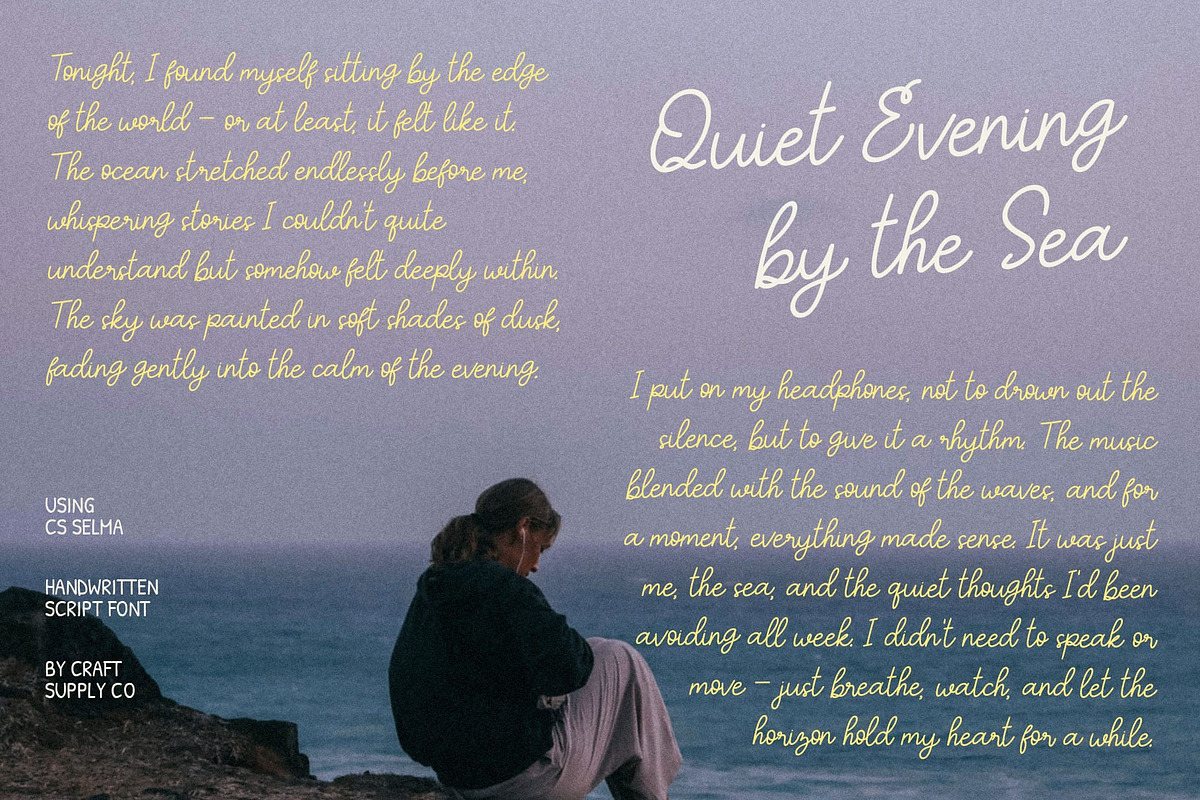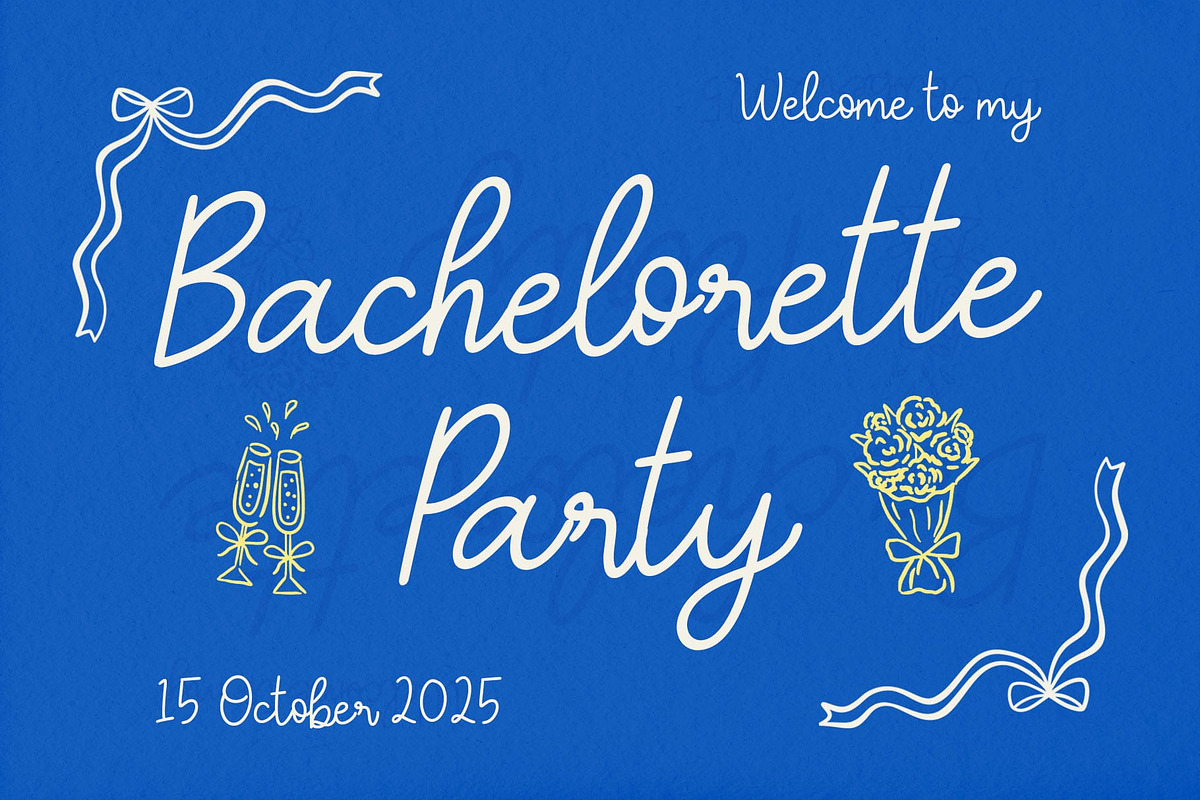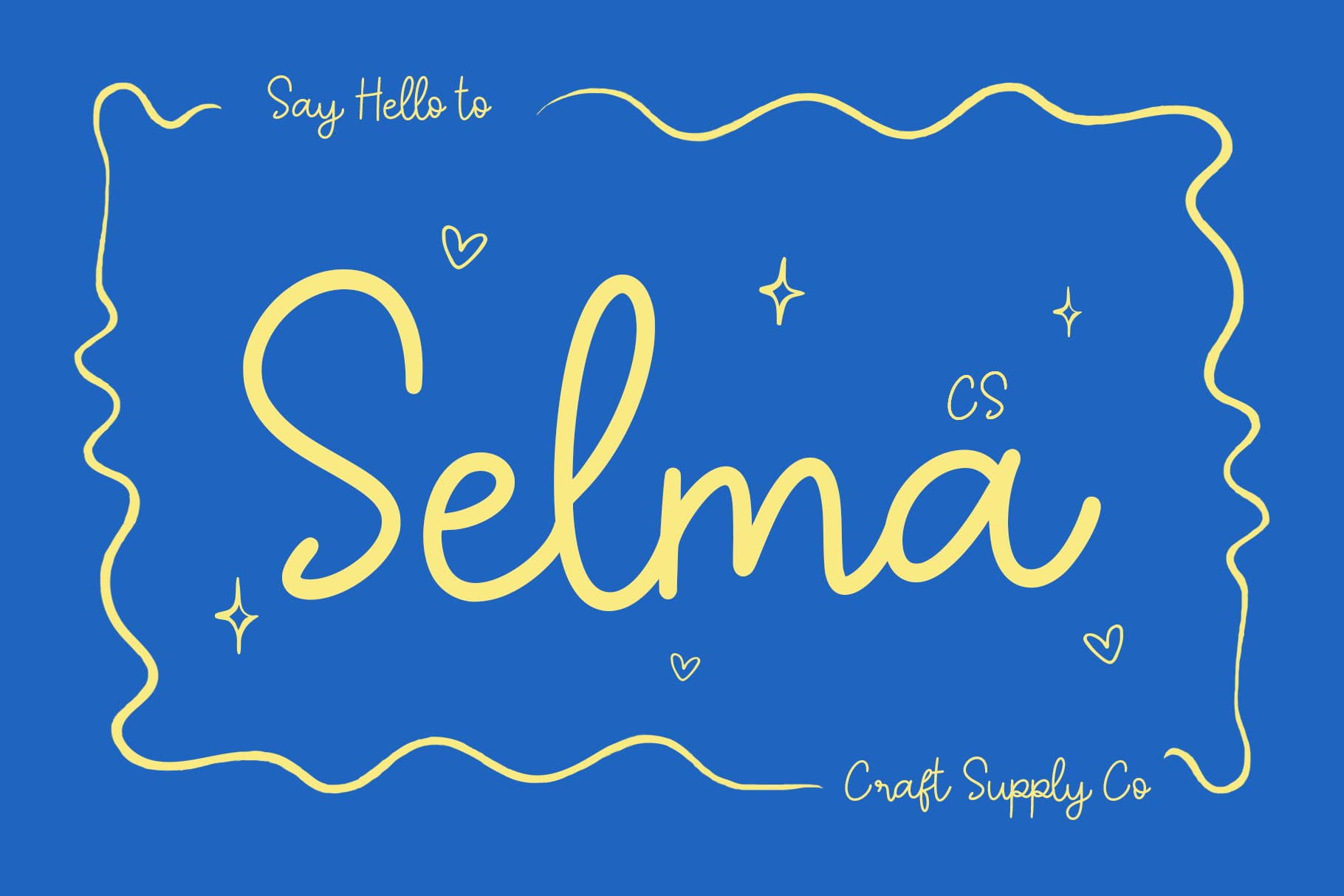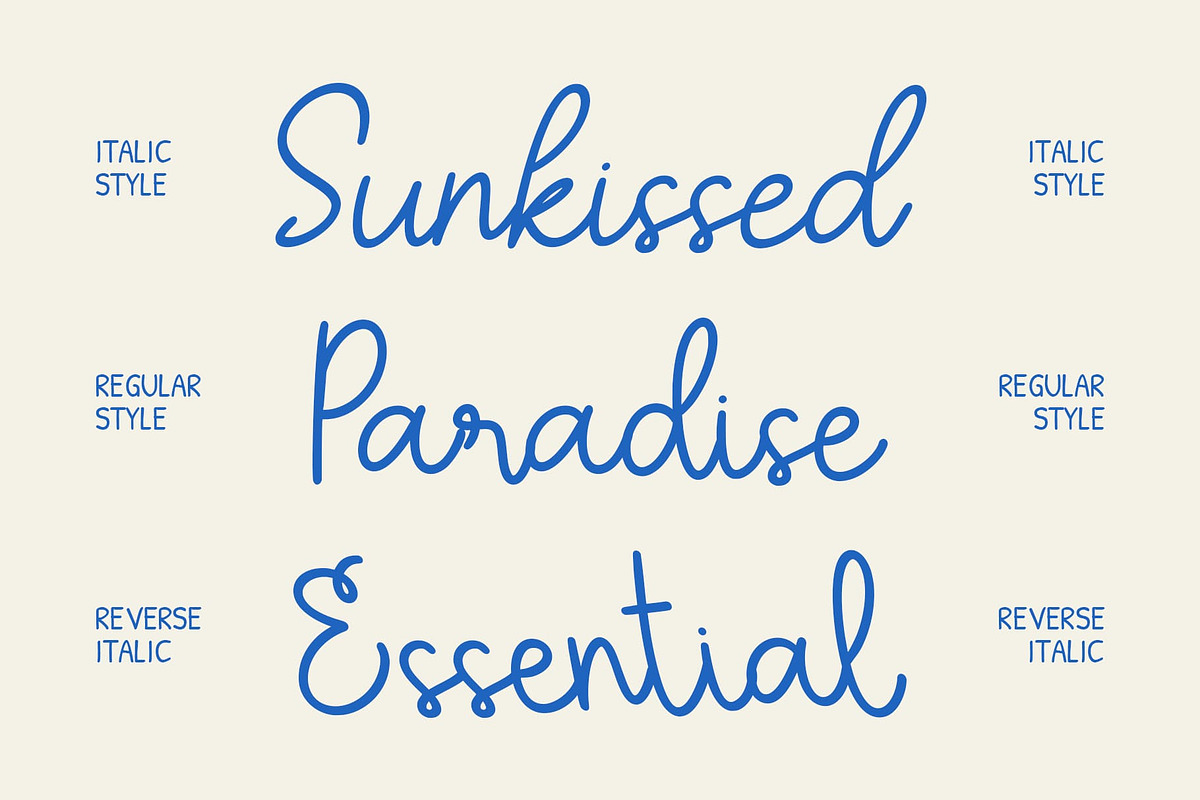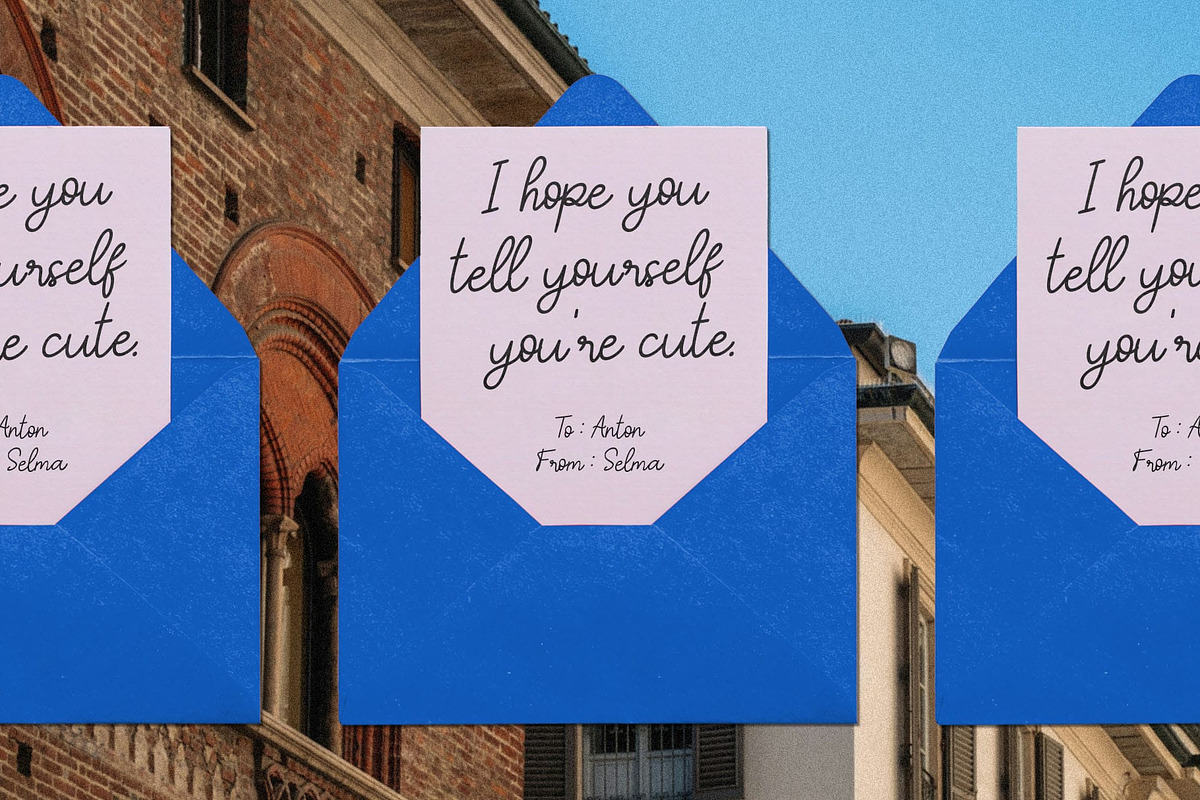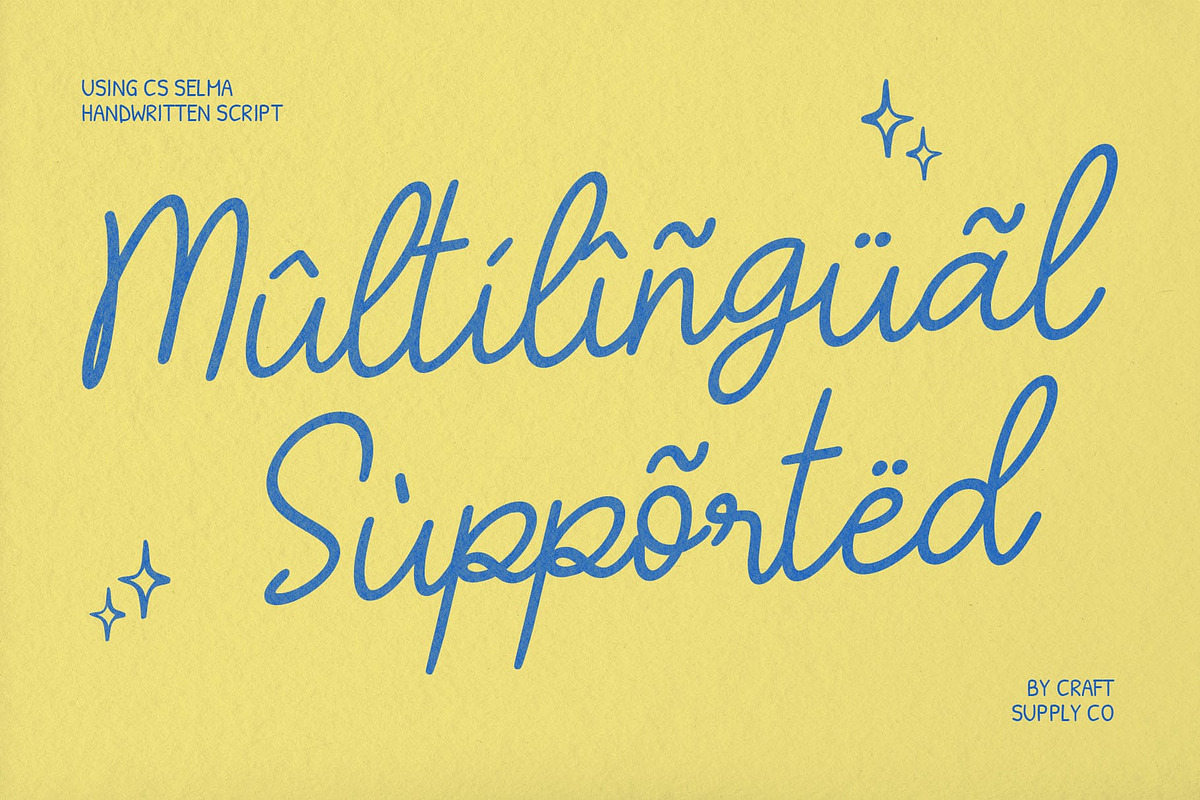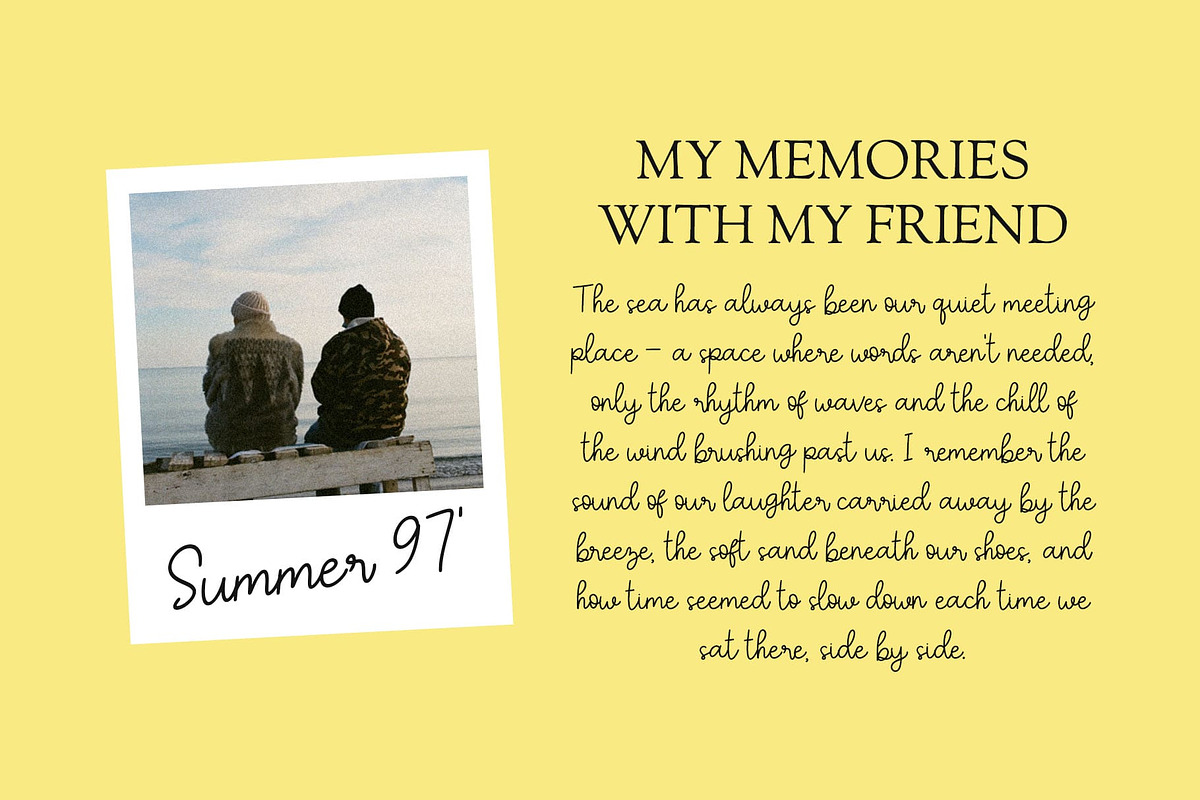
CS Selma – Elegant Script Font
CS Selma – Script Font: Where Grace Meets Timeless Elegance
Elegant Script with Flowing Beauty This is a script font that embodies elegance, grace, and natural flow. Each letter is designed with refined curves and soft rhythm, creating a beautifully balanced typeface that feels both romantic and luxurious. Its flowing strokes and smooth movement give any design a sense of sophistication and warmth.
Refined Details for a Luxurious Touch With its delicate lines and stylish construction, this font captures the essence of timeless handwriting. The consistent rhythm and gentle contrast between strokes add to its high-end appeal, making it perfect for designers seeking to convey refinement and charm. Its craftsmanship shines in every curve, ensuring that each word feels artfully composed.
Perfect for Elegant and Romantic Projects The font flourishes in wedding invitations, fashion branding, editorial layouts, and luxury packaging. Whether used as a headline or a signature accent, it effortlessly enhances the visual allure of your design. Its sophisticated style adds emotion and beauty, ideal for projects that require an intimate yet polished look.
A Modern Classic for Distinctive Branding This combines the classic essence of calligraphy with modern sophistication, creating a versatile font that suits both timeless and contemporary designs. It is not only elegant but also highly expressive making it the perfect choice for designers who want their work to convey grace, and enduring beauty.